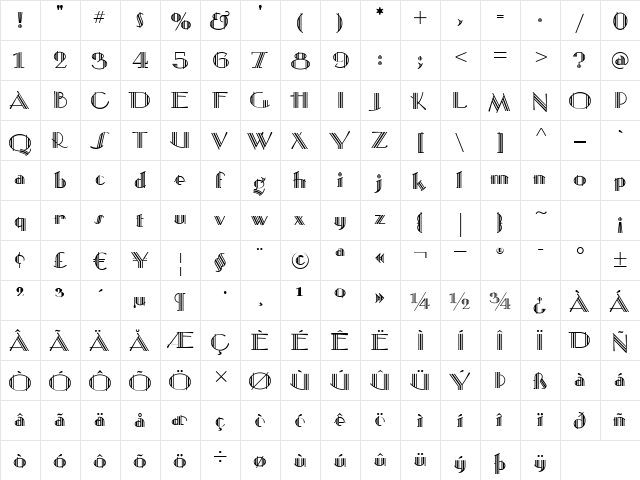
Mustang Sally Itc Regular
Design Context for Mustang Sally Itc Typeface
Mustang Sally Itc is a composed and adaptable typeface that performs quietly and consistently across a wide range of design contexts.